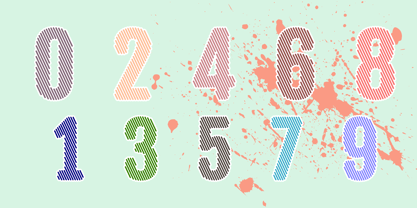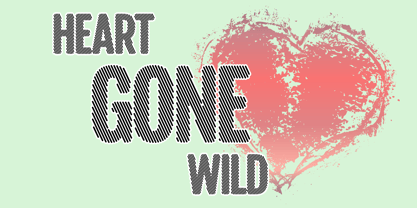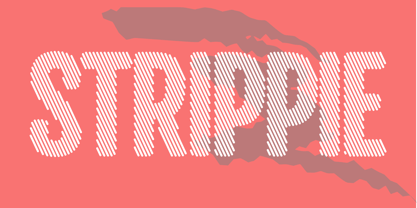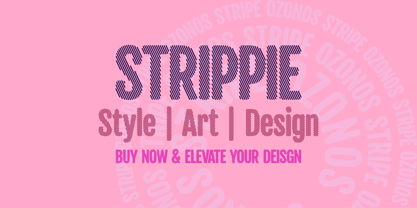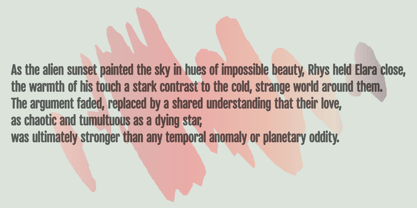
Strippie
by Kufic Studio
The Strippie Font Family was designed by Ahsan Ahmedzai and published by Kufic Studio. Strippie contains 2 styles and family package options.
Strippie: Sleek, Playful & Full of Lines
Strippie is a stylish display font with a distinctive striped design that turns ordinary text into a visual statement. Its clean lines and rhythmic stripe pattern give it a modern, energetic feel—perfect for projects that need to stand out.
Whether you’re designing bold headlines, eye-catching posters, or trendy brand identities, Strippie delivers a unique look that blends creativity with clarity. Its versatile design works beautifully in fashion graphics, music artwork, sports branding, and digital campaigns.
Key Features:
Distinctive stripe-filled letterforms for a dynamic look
Ideal for posters, packaging, logos, and social media graphics
Works best at larger sizes for maximum impact
Great for both digital and print projects